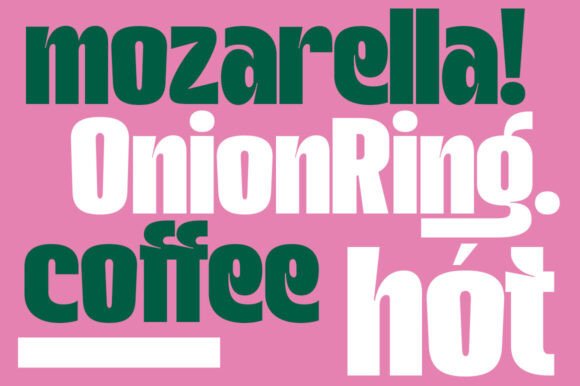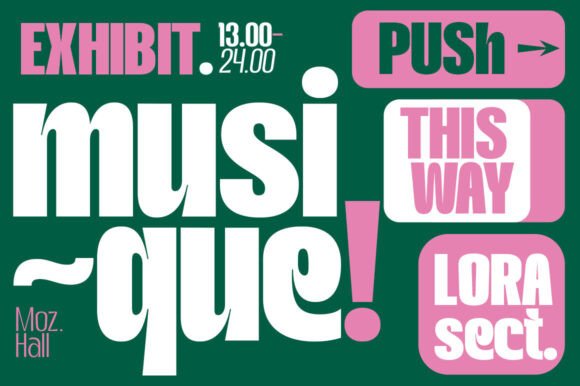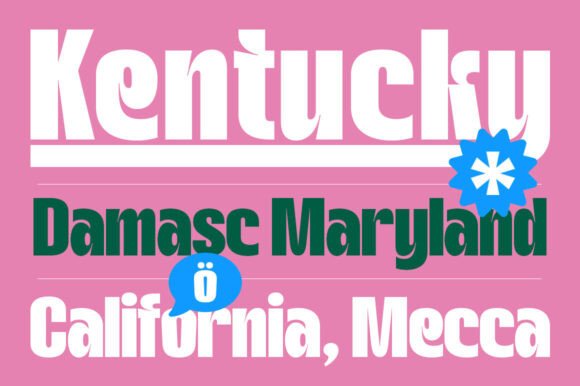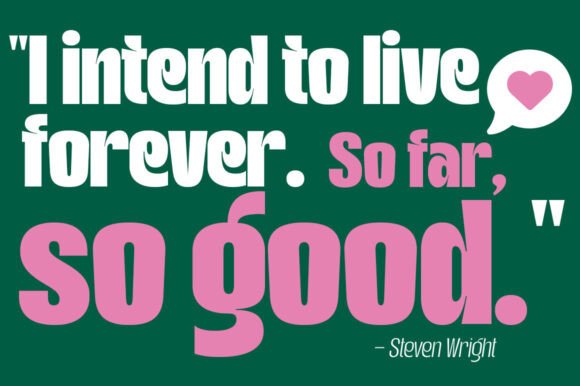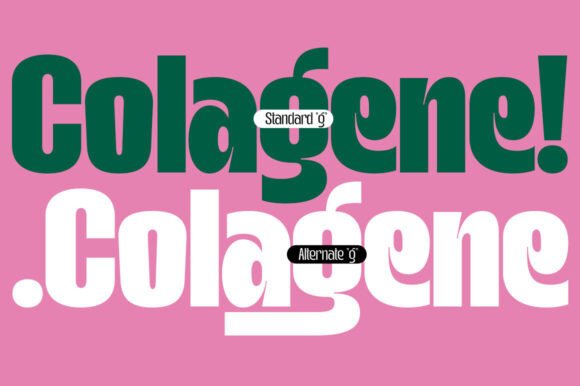
Introducing Gotkin Black Font: The Epitome of Modern Strength and Sophistication
In the realm of typography, a font can make or break the visual identity of a brand, product, or editorial piece. With the vast array of fonts available, finding the perfect blend of modernity, strength, and sophistication can be a daunting task. However, look no further than the Gotkin Black Font, a robust and elegant sans serif font family designed to convey the essence of contemporary dynamism.
Design Philosophy: Soft Curves and Geometric Boldness
Gotkin’s design philosophy revolves around striking a delicate balance between soft curves and bold geometric lines. This harmonious blend adds a touch of warmth to the font, making it ideal for corporate branding, digital interfaces, and editorial designs. The inclusion of soft curves ensures that the font exudes a sense of approachability, while the geometric boldness provides a strong foundation, perfect for making a statement.
Versatility at Its Core: A Range of Weights and Features
One of the standout features of the Gotkin font family is its extensive range of weights, spanning from light to black. This versatility allows designers to experiment with various typography styles, ensuring that the font can adapt to any design requirement. Additionally, Gotkin features beautiful italics, excellent weights, alternates, ligatures, and extensive language support, making it a comprehensive solution for professionals seeking clarity and style.
Clean Lines and Readability: A Font for All Formats
Gotkin’s clean lines are meticulously crafted to ensure exceptional readability across all formats, from headlines to body text. This makes it an excellent choice for designers seeking a font that can seamlessly transition between various typography applications. Whether you’re working on a corporate branding project, digital interface, or editorial piece, Gotkin’s clean lines and elegant design ensure that your message is conveyed with clarity and style.
Variable Font Version: Unleashing Creative Freedom
Gotkin also comes with a Variable font version, designed to make it easy for designers to explore and refine beautiful designs. This feature allows for effortless experimentation with different weights, styles, and variations, providing unparalleled creative freedom. With the Variable font version, designers can push the boundaries of typography, creating stunning visual effects that elevate their designs to new heights.
Exceling in Display Settings: Headlines, Titles, and More
Gotkin excels in display settings, making it an excellent choice for headlines, titles, branding projects, logo designs, packaging, magazine titles, advertisements, and short or long texts. Its bold geometric lines and soft curves create a striking visual effect, drawing attention to the message and leaving a lasting impression on the audience. Whether you’re working on a large-scale billboard or a small-scale business card, Gotkin’s impressive display capabilities ensure that your design stands out.
Applications and Use Cases: Where Gotkin Shines
Gotkin’s versatility and range of features make it suitable for a wide range of applications and use cases, including:
- Corporate branding and identity
- Digital interfaces and UI/UX design
- Editorial designs, such as magazines and newspapers
- Logo designs and branding projects
- Advertisements and marketing materials
- Headlines, titles, and short or long texts
Conclusion: Elevate Your Designs with Gotkin Black Font
In conclusion, the Gotkin Black Font is an exceptional sans serif font family that embodies modern strength and sophistication. With its soft curves, geometric boldness, and extensive range of weights and features, Gotkin is the perfect solution for designers seeking clarity, style, and versatility. Whether you’re working on a corporate branding project, digital interface, or editorial piece, Gotkin’s impressive display capabilities and exceptional readability make it an excellent choice. Experience the power of Gotkin Black Font and elevate your designs to new heights.